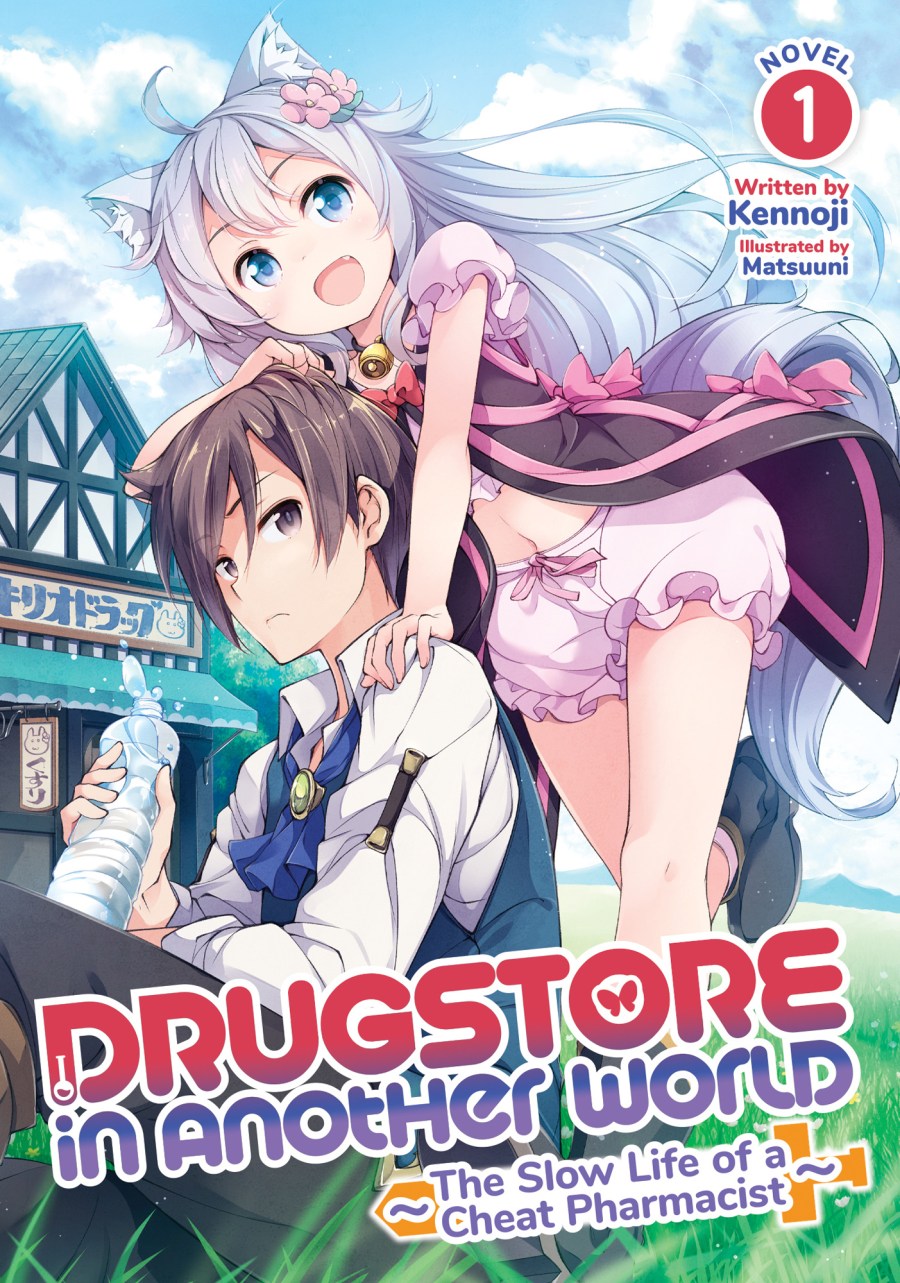
Drugstore in Another World Font
The Plush font by Fontalicious, a rounded sans serif, is used in the book series title. The font is available for download in the Fonts Used Section and is free for personal use.